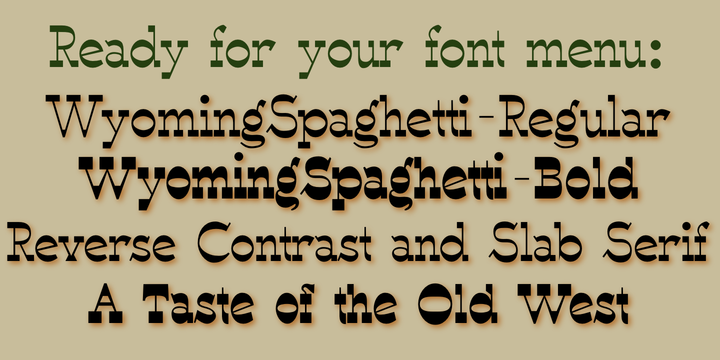
Typefaces with very thin verticals and fat, square serifs were popular in the 19th century for display. Hollywood helped associate this style with the Old West, but reference books identify some of it as Italian style.
Wyoming Spaghetti, part of an extended family of typefaces, has a name which combines these two associations. Most typefaces of this type are very condensed, but this one is not. The letter o is nearly circular, which is rather unusual in this style.